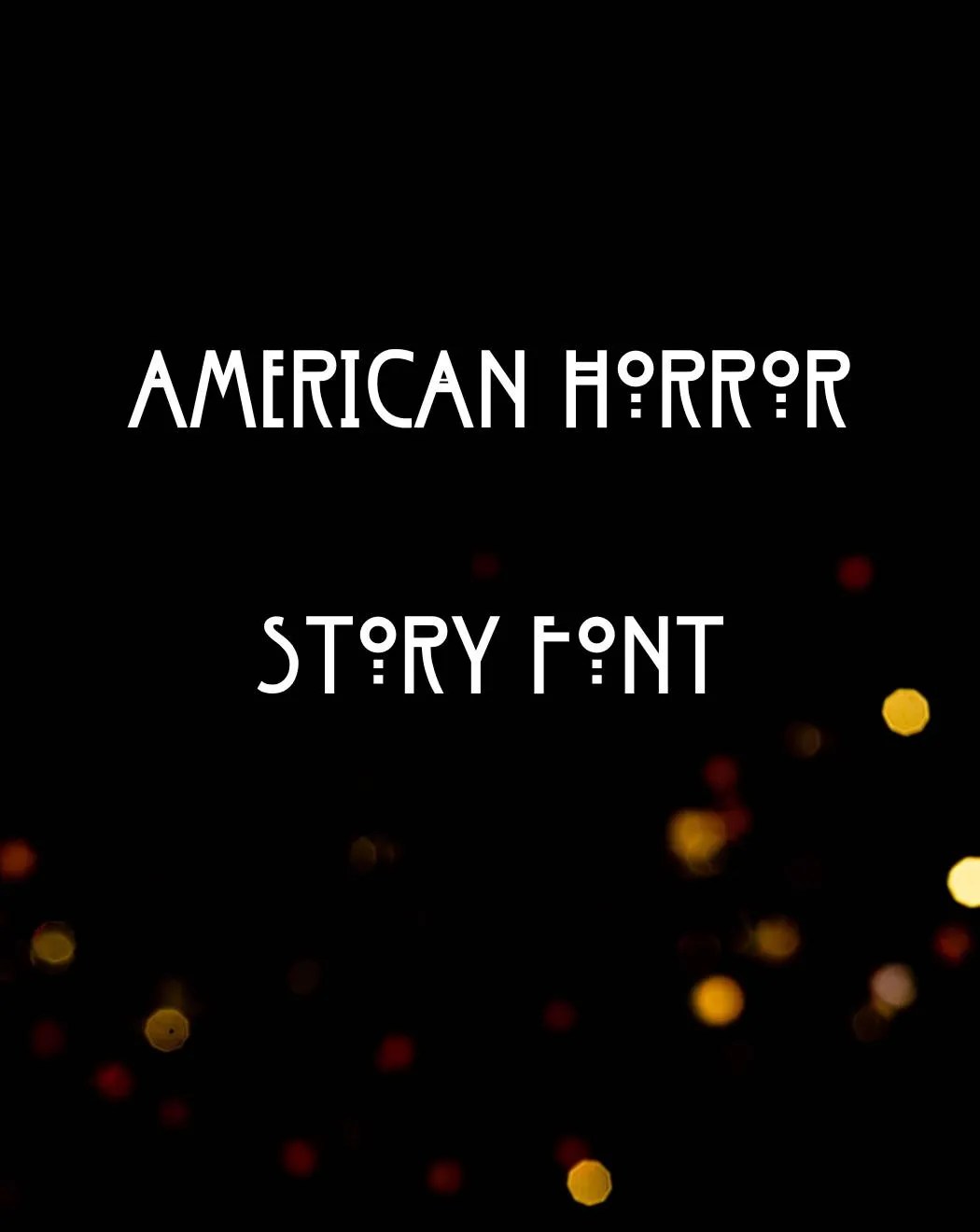
How To Get American Horror Story Font . The first font is called american horror story font which is free for personal use and the second font is called hill house. You can download american horror story font from font sherlock. How to download and use american horror story font ? We have found 3 fonts that are similar to the famous tv show logotype. The ahs font uses a modified version of itc willow but we found two replicas that look just like the ahs logo. The site will redirect you to the front page where you will find the. Try the best american horror story font generator & convert your text into images with. Introducing the american horror story font, or ahs font for short. Enter your text, select a font, choose a font size, and pick your favorite colors. Download american horror story (ahs) font font free on fontbolt. Try the best american horror story (ahs) font generator & convert your text into images with many styles to choose from. Download american horror story font font free on fontbolt. Hit the generate button and your logo/image is created and ready to download. Use our free american horror story font generator tool below to create your own custom design logo or image. American horror story font | dafont.com english français español deutsch italiano português.
American Horror Story Font
How To Get American Horror Story Font The ahs font uses a modified version of itc willow but we found two replicas that look just like the ahs logo. Download american horror story (ahs) font font free on fontbolt. The ahs font uses a modified version of itc willow but we found two replicas that look just like the ahs logo. Hit the generate button and your logo/image is created and ready to download. The first font is called american horror story font which is free for personal use and the second font is called hill house. Try the best american horror story (ahs) font generator & convert your text into images with many styles to choose from. The site will redirect you to the front page where you will find the. Enter your text, select a font, choose a font size, and pick your favorite colors. Download american horror story font font free on fontbolt. American horror story font | dafont.com english français español deutsch italiano português. Introducing the american horror story font, or ahs font for short. How to download and use american horror story font ? You can download american horror story font from font sherlock. Use our free american horror story font generator tool below to create your own custom design logo or image. Try the best american horror story font generator & convert your text into images with. We have found 3 fonts that are similar to the famous tv show logotype.
American Horror Story Font How To Get American Horror Story Font Try the best american horror story font generator & convert your text into images with. The site will redirect you to the front page where you will find the. The first font is called american horror story font which is free for personal use and the second font is called hill house. The ahs font uses a modified version of. How To Get American Horror Story Font.
American Horror Story Font by angeldavidcs on DeviantArt How To Get American Horror Story Font We have found 3 fonts that are similar to the famous tv show logotype. Try the best american horror story (ahs) font generator & convert your text into images with many styles to choose from. Hit the generate button and your logo/image is created and ready to download. Download american horror story font font free on fontbolt. Introducing the american. How To Get American Horror Story Font.
American Horror Story Font Free Download How To Get American Horror Story Font The first font is called american horror story font which is free for personal use and the second font is called hill house. You can download american horror story font from font sherlock. Enter your text, select a font, choose a font size, and pick your favorite colors. We have found 3 fonts that are similar to the famous tv. How To Get American Horror Story Font.
American Horror Story Font Free Download FontSwan How To Get American Horror Story Font Hit the generate button and your logo/image is created and ready to download. Download american horror story (ahs) font font free on fontbolt. Introducing the american horror story font, or ahs font for short. The first font is called american horror story font which is free for personal use and the second font is called hill house. Download american horror. How To Get American Horror Story Font.